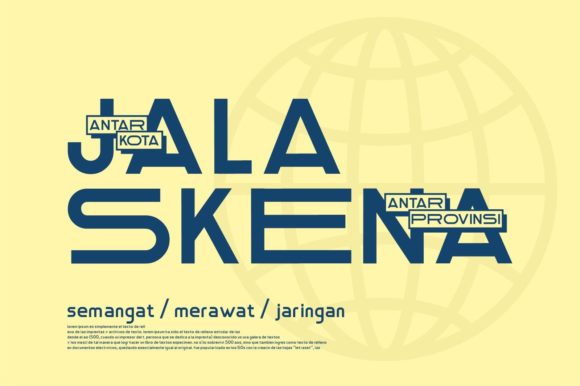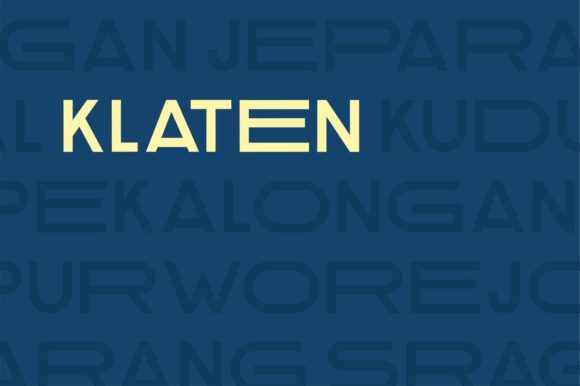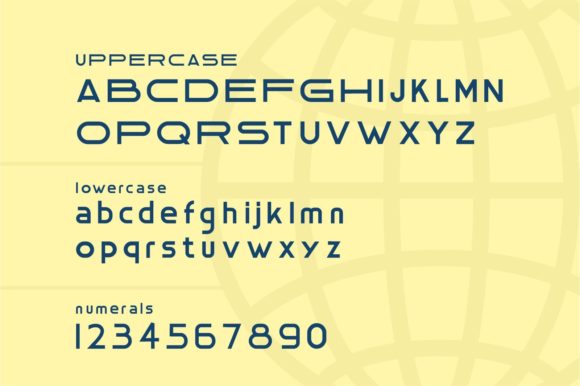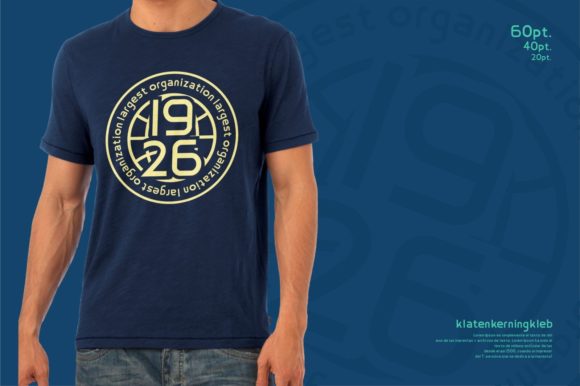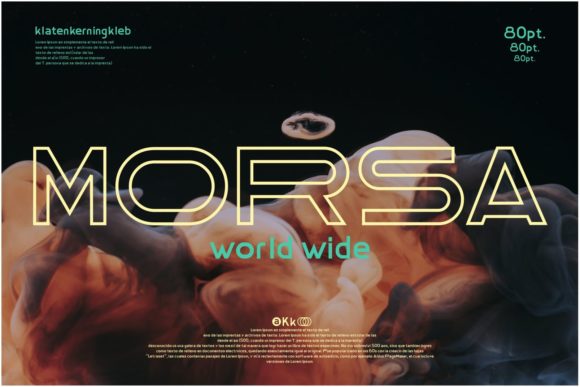
Introduction to Morsa Font
Have you ever found yourself stuck in a creative rut, staring at a blank canvas or screen, unsure of where to begin your next project? For designers, this moment can be a frustrating experience, especially when the right tool can make all the difference. That’s where Morsa Font comes in – a game-changing design resource that’s perfect for crafting, digital designing, presentations, and even greeting cards.
What sets Morsa Font apart is its unique blend of modernity and futurism. This high-quality sans serif font is designed to be versatile and adaptable, making it a valuable addition to any designer’s toolkit. Whether you’re working on a complex design project or just need a clean and simple font for a quick edit, Morsa Font is the perfect solution. With its transparent background and free download option, it’s easy to integrate into your workflow and get creative without any hassle.
Key Features of Morsa Font
- High-quality design resource ideal for creative projects, offering a unique and elegant aesthetic.
- Designed with a high resolution of 300 DPI, ensuring crisp and clear typography in print and digital applications.
- Perfect for use in logos, branding materials, and other design projects where a sophisticated, modern look is desired.
Honest Review: Morsa Font
Morsa Font is a high-quality design resource that I’ve had the pleasure of working with on a recent creative project. The font’s sleek and modern design makes it perfect for any professional or personal project.
One of the standout features of Morsa Font is its transparent background, which allows for seamless integration into any design. It’s also a free download, making it an excellent choice for designers on a budget.
Here are some of the things that work well with Morsa Font:
- ✨ High-quality design that’s perfect for professional projects
- ⚠️ Limited character set, which may not be suitable for complex projects
- ⚠️ May not be as versatile as some other fonts on the market
Overall, I’m extremely impressed with Morsa Font and would highly recommend it to any designer looking for a high-quality font for their next creative project.
Morsa Font is a high-quality design resource that offers a range of stylish and versatile fonts. With a transparent background, this font is perfect for any creative project that requires a professional touch.
Morsa Font is ideal for a wide range of creative projects, including: